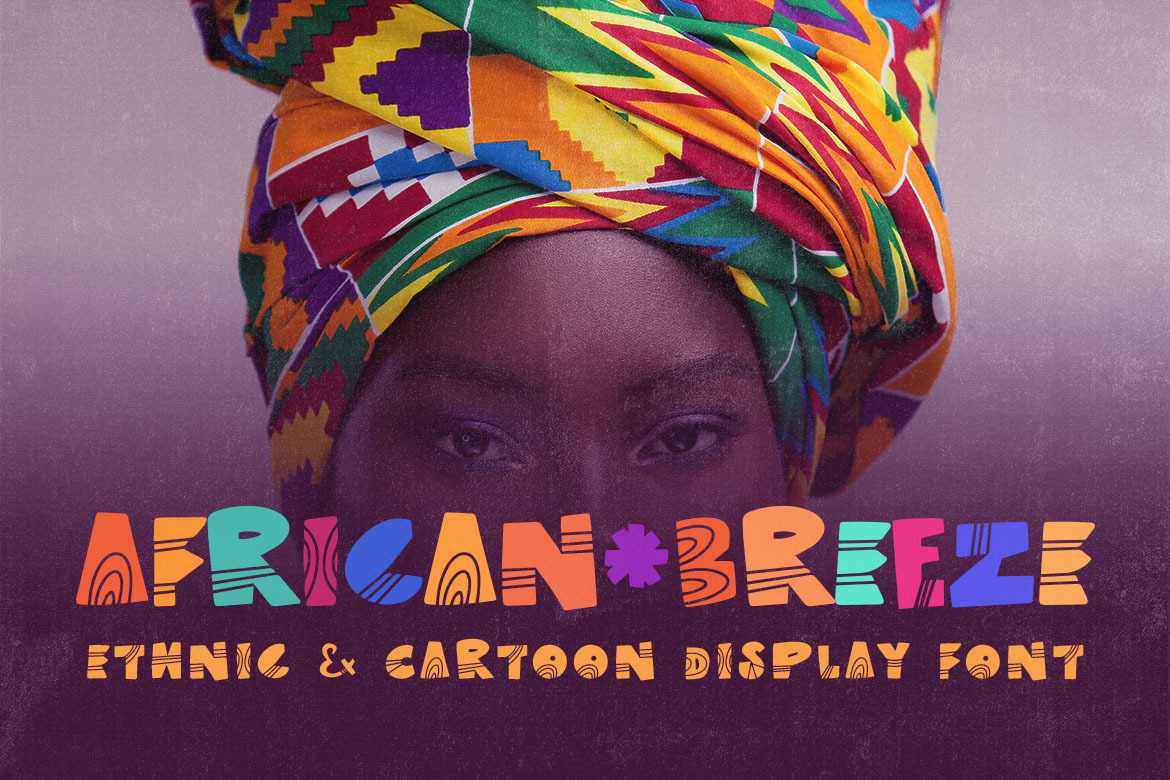
African Breeze Playful Font
African, decorative, ornamental, handwritten and playful sans serif font for your new projects. With multi language support and casual artistic or funny style ;)
- multilingual support
- CAPS & CAPS alternates (small letters) + numbers & special characters